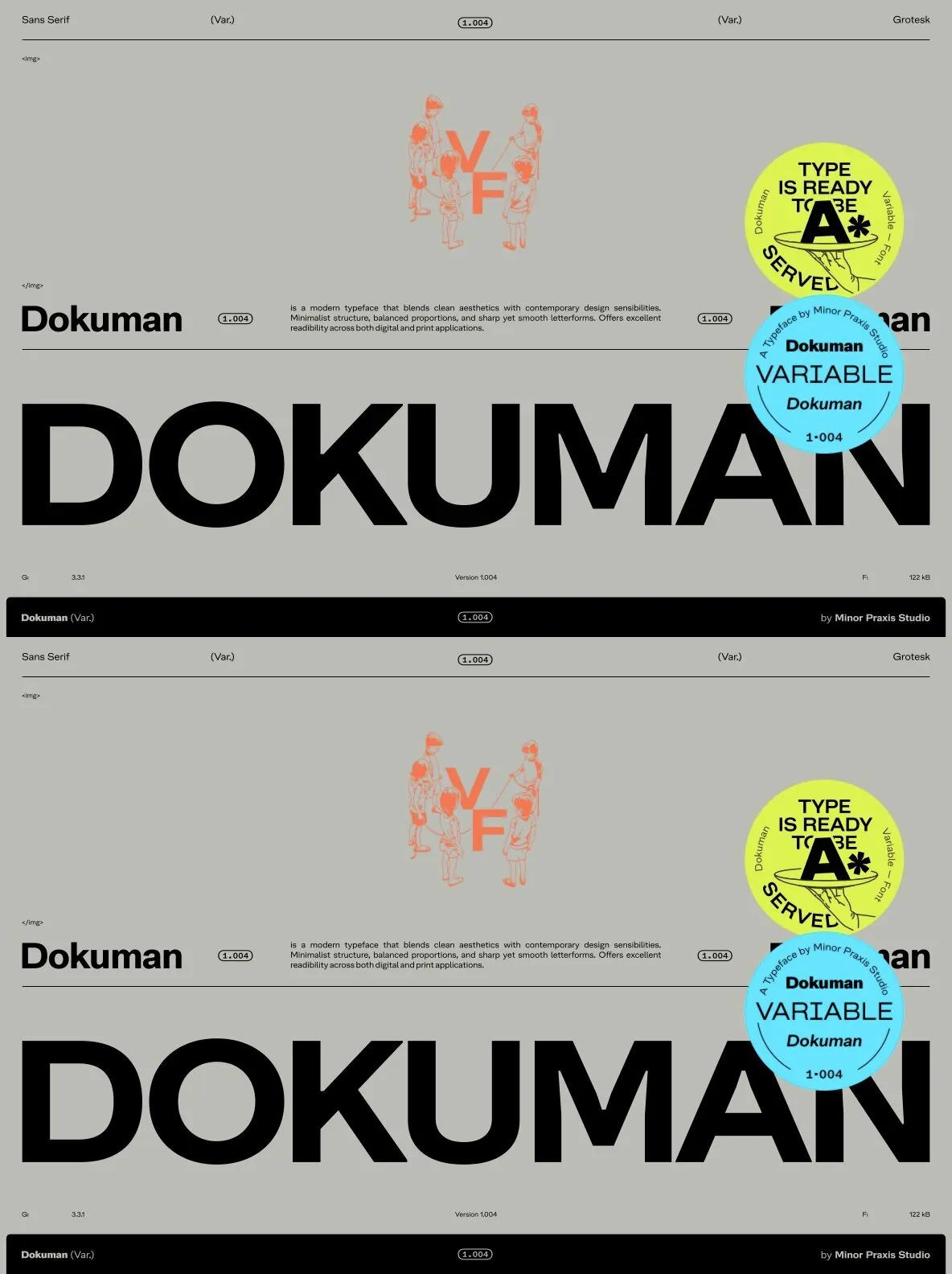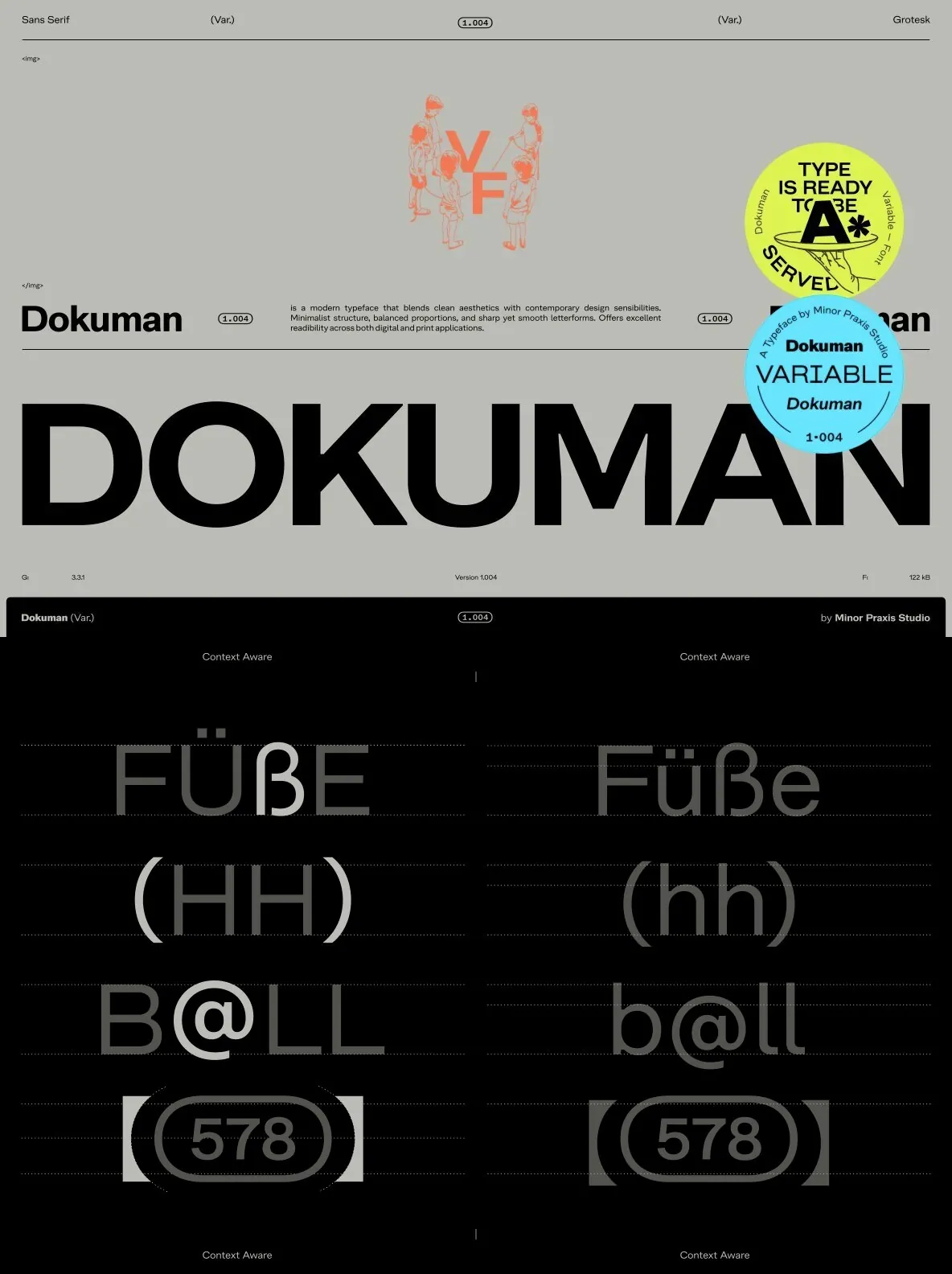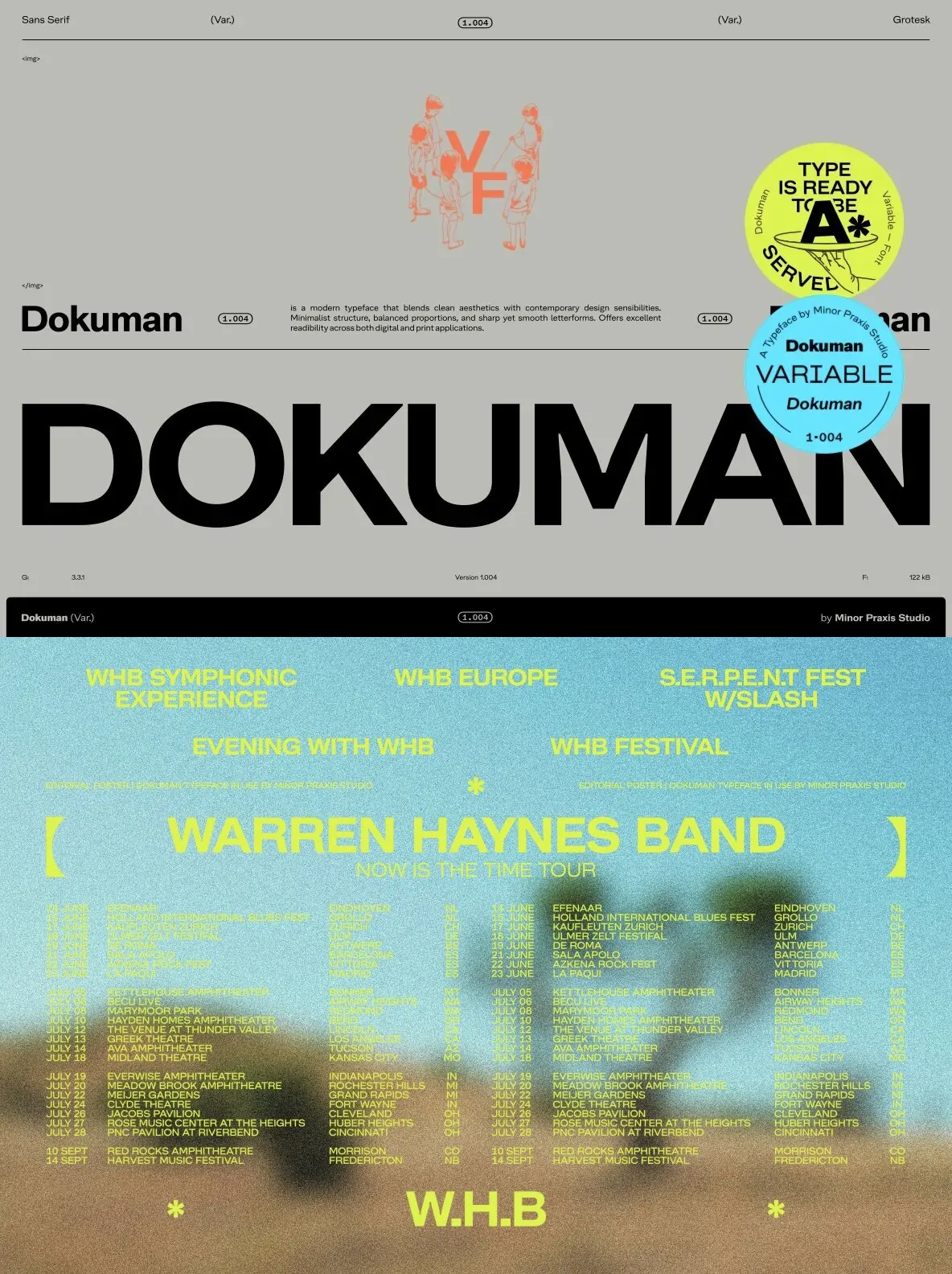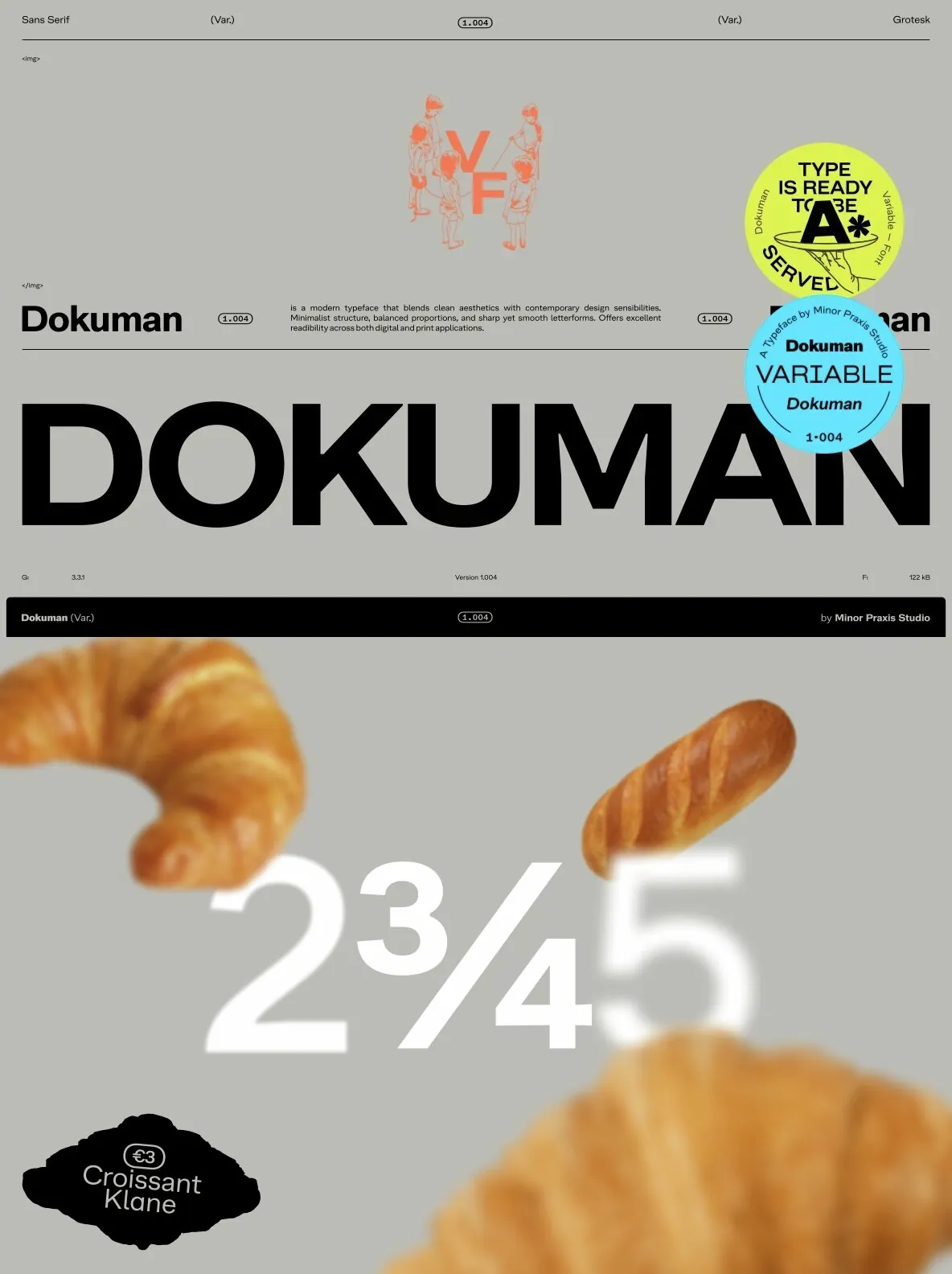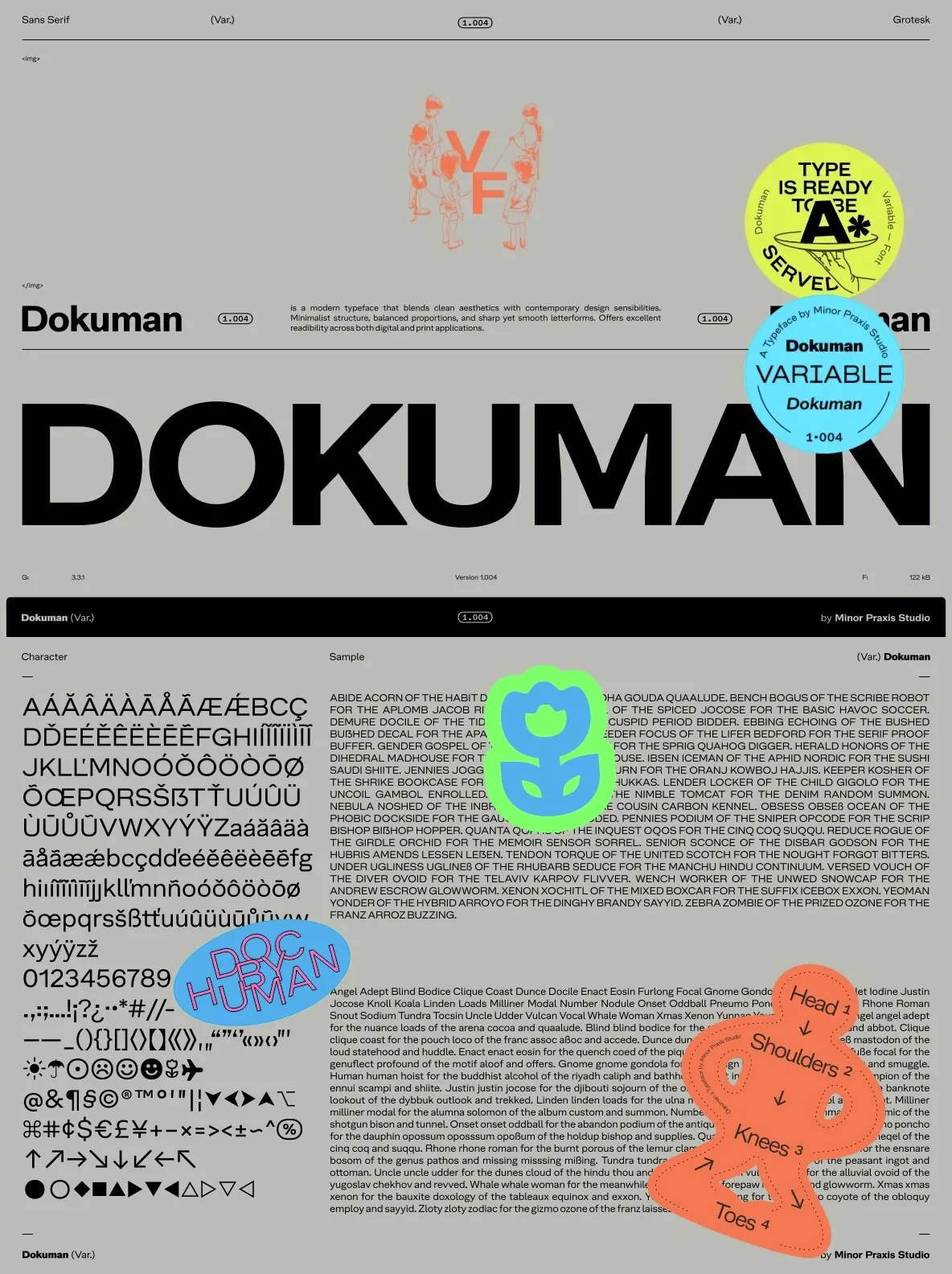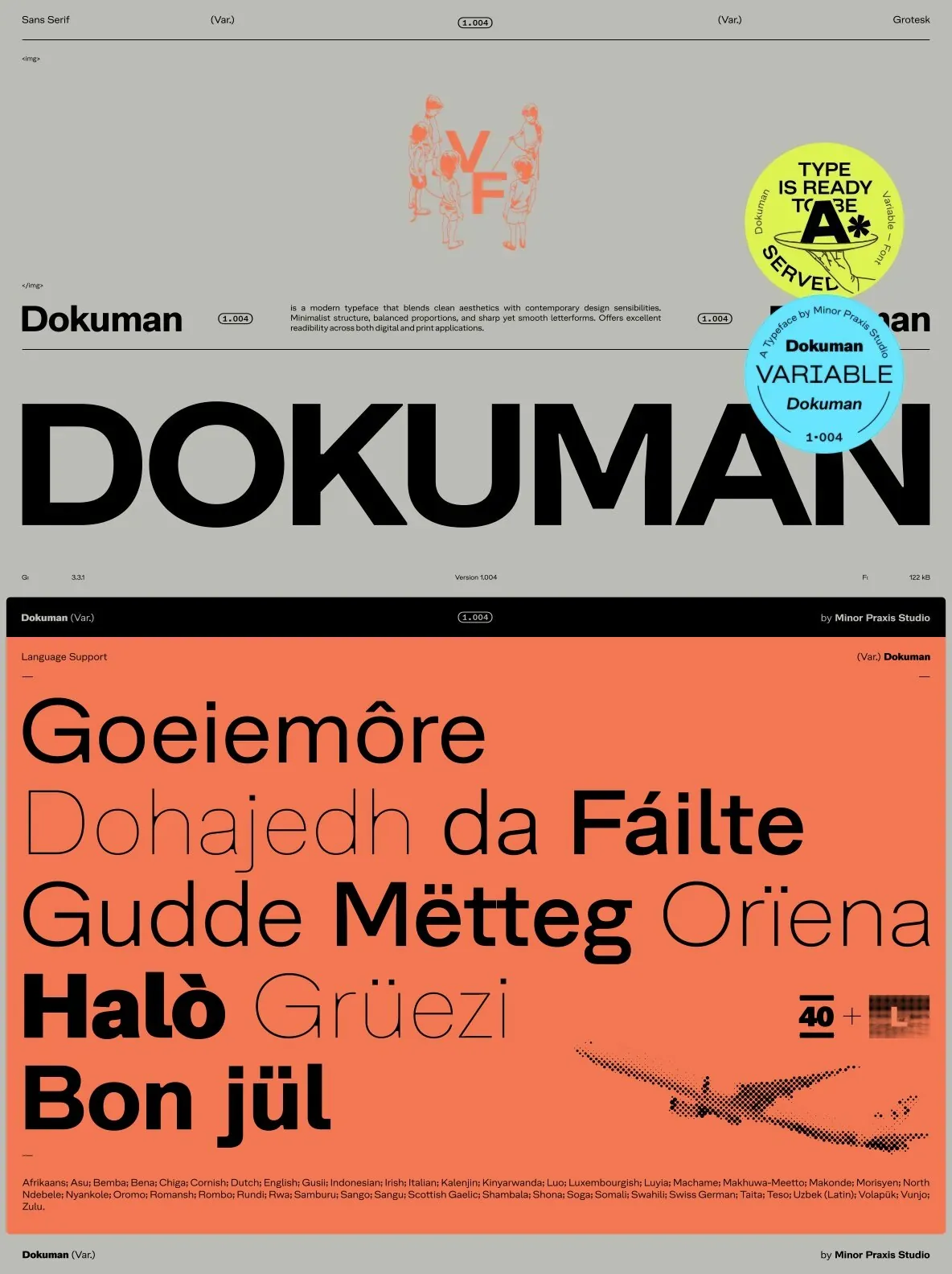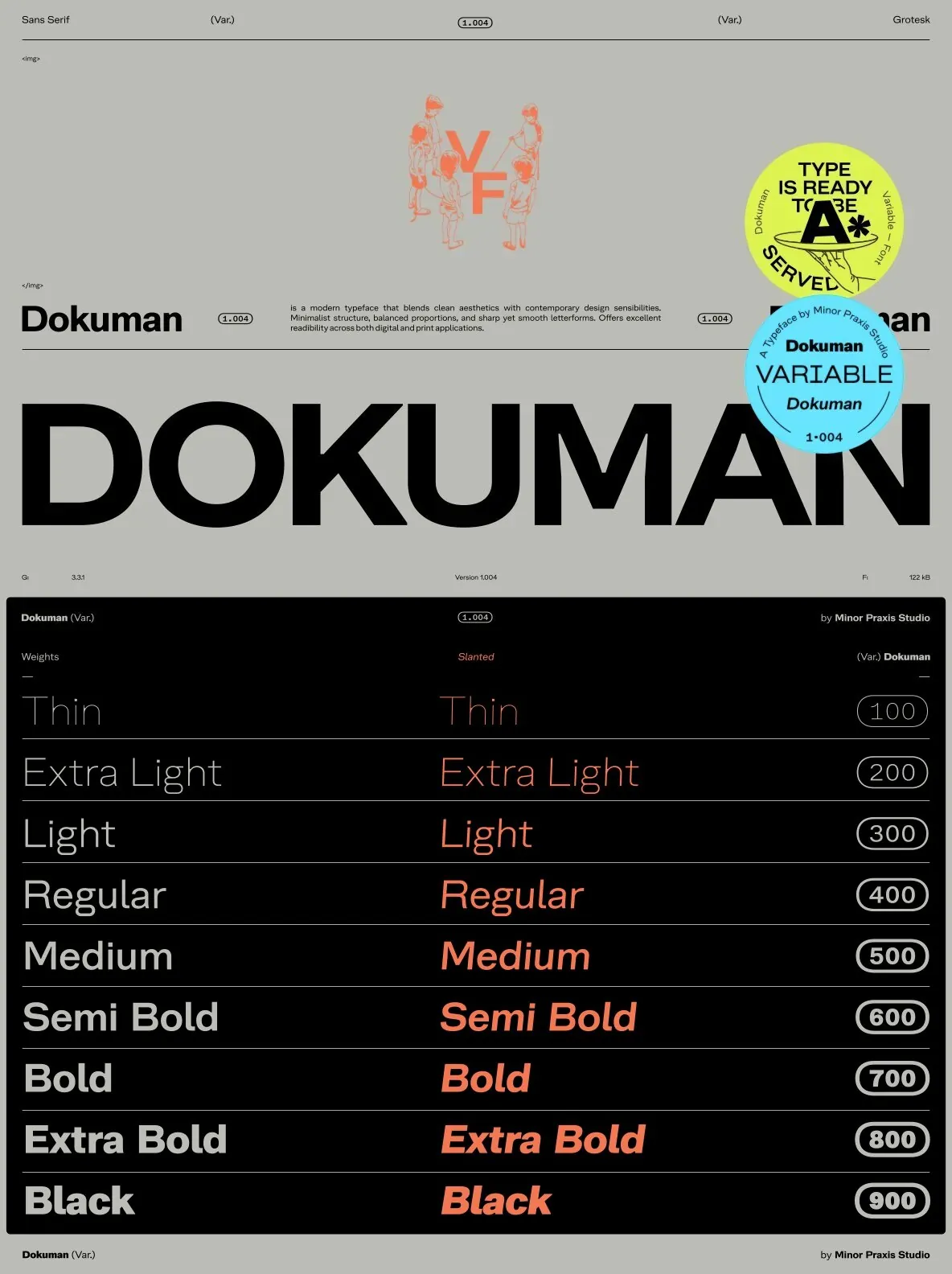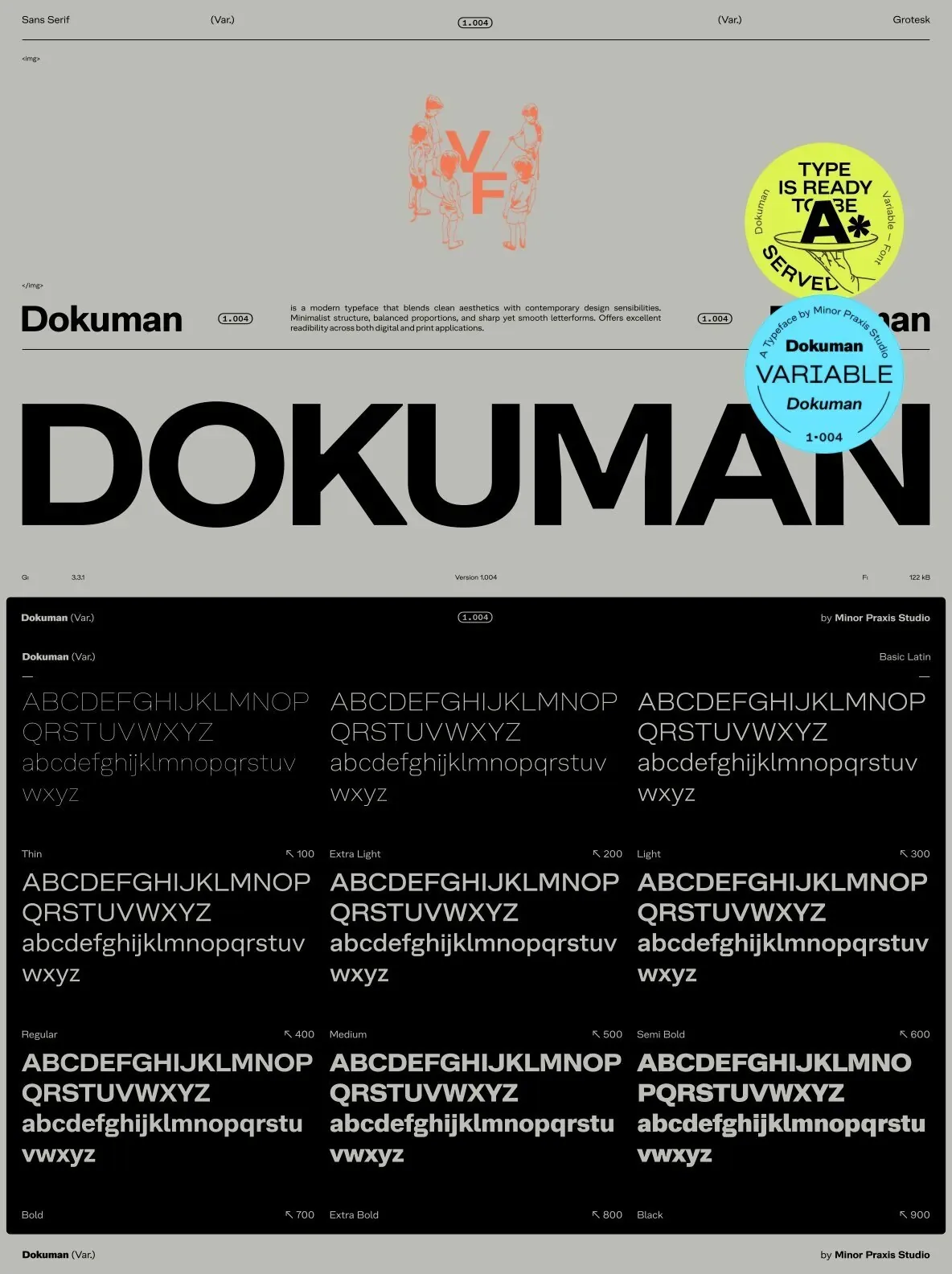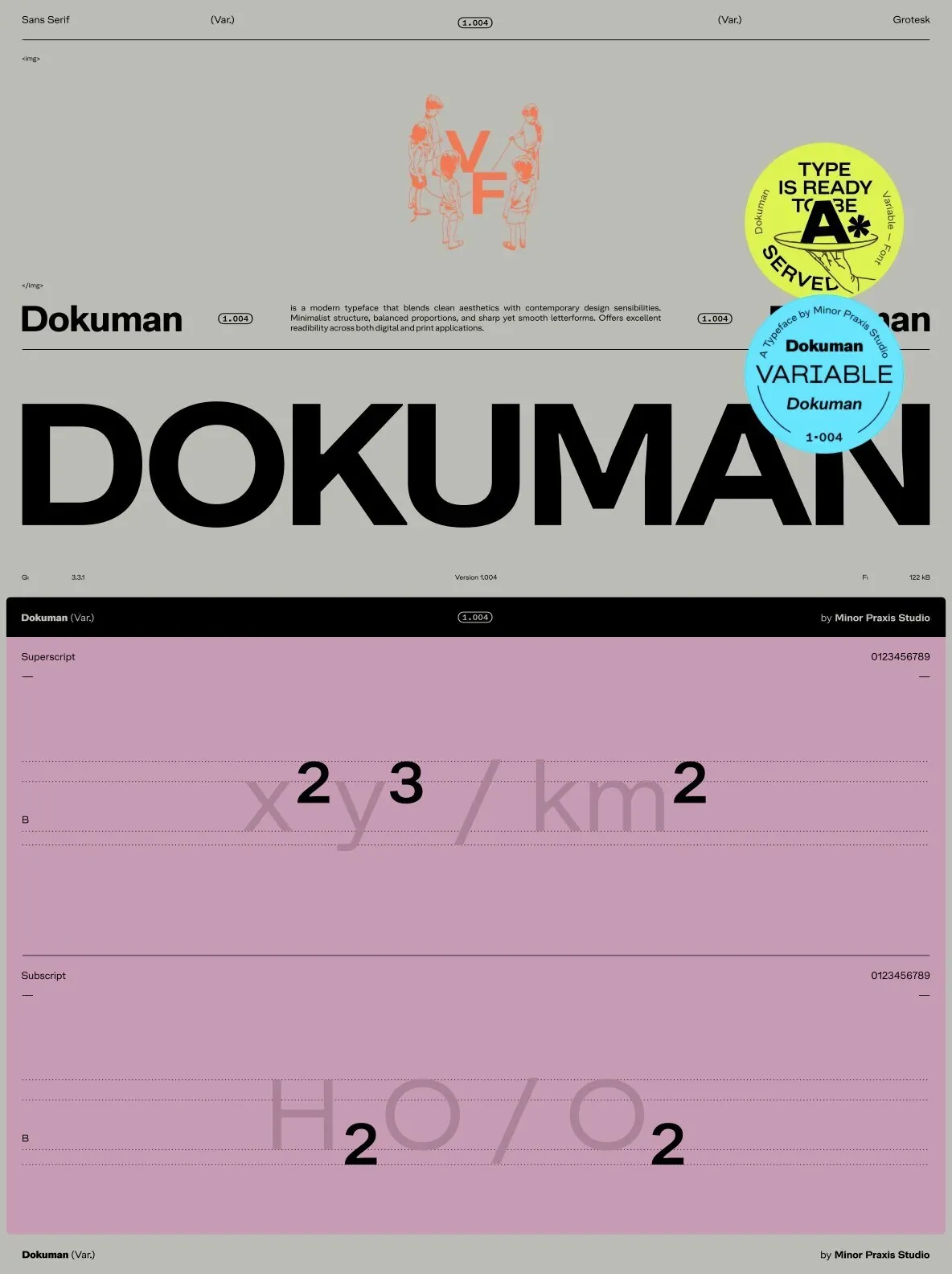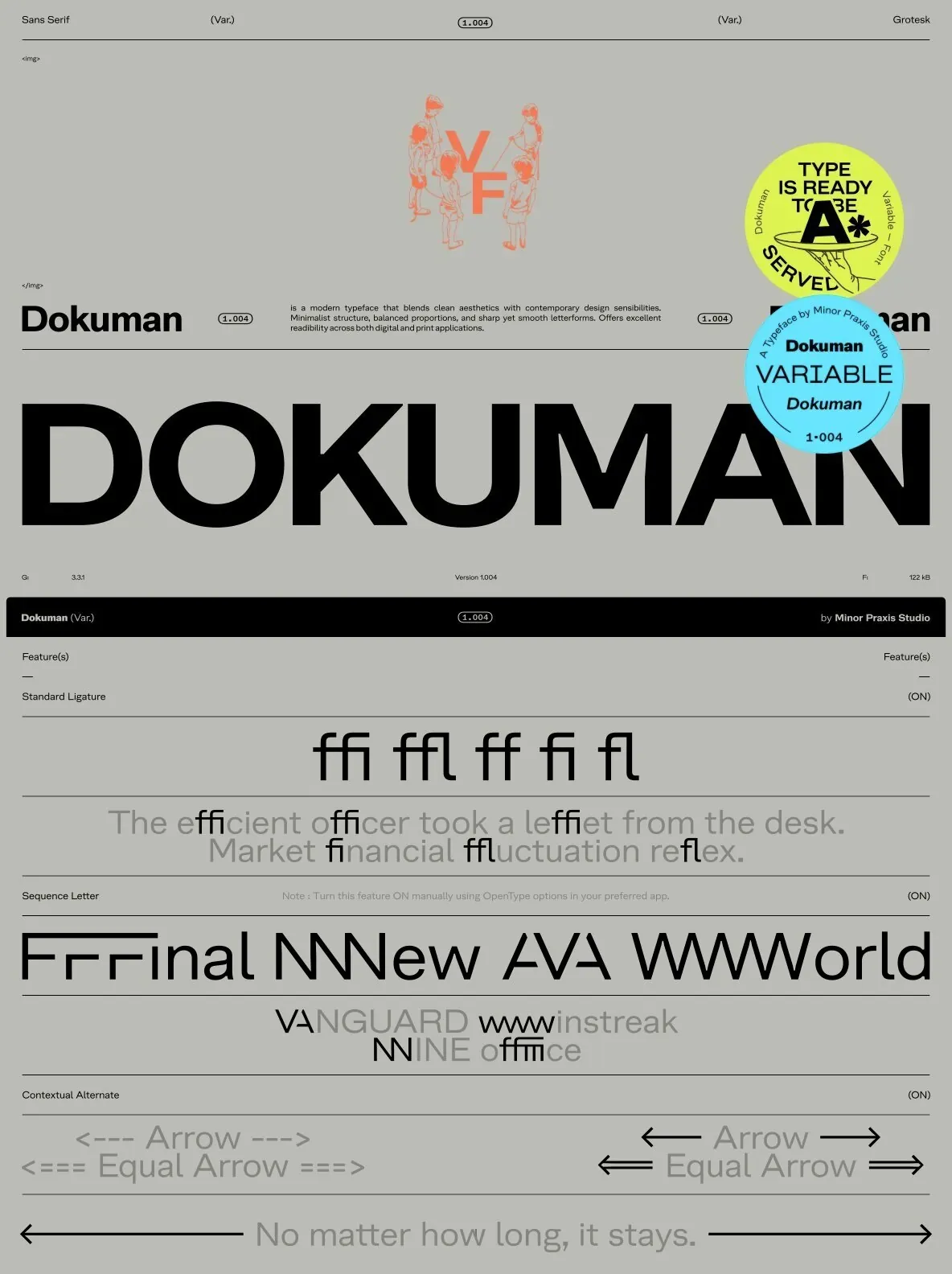
Dokuman Font
Dokuman — Minimal, Sharp, Contemporary
Dokuman embodies modern minimalism in typography with a sleek design and contemporary flair. Its restrained structure and well-judged proportions give text a clean, confident tone, making it a strong fit for modern branding and layout work.
Built for clarity, Dokuman keeps readability crisp and sharp across diverse mediums. Use it for digital interfaces where precision matters, or in traditional print where consistent letterforms and spacing help copy stay clear and attractive on the page.
Clean Aesthetics – Enhances modern design projects with its refined letterforms.
Balanced Proportions – Offers visual harmony, ensuring text clarity and appeal.
Versatile Readability – Suitable for both digital interfaces and traditional print, maintaining effectiveness across formats.